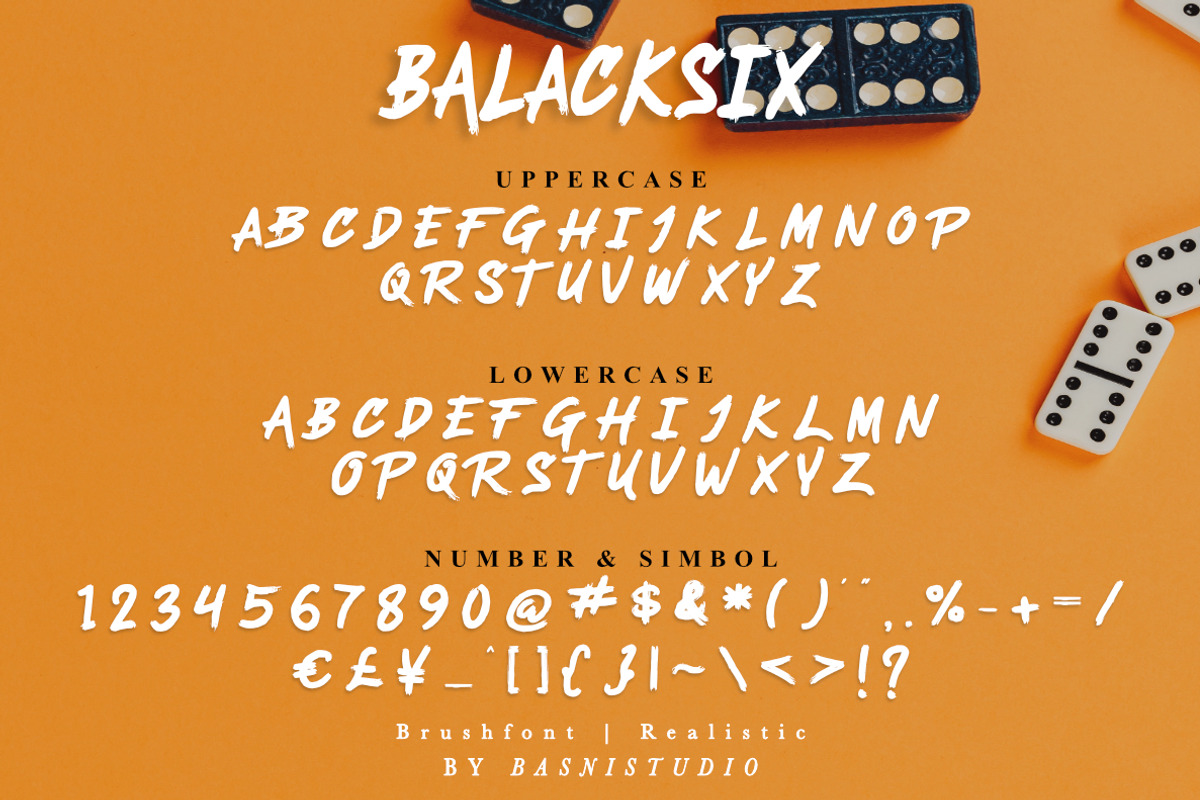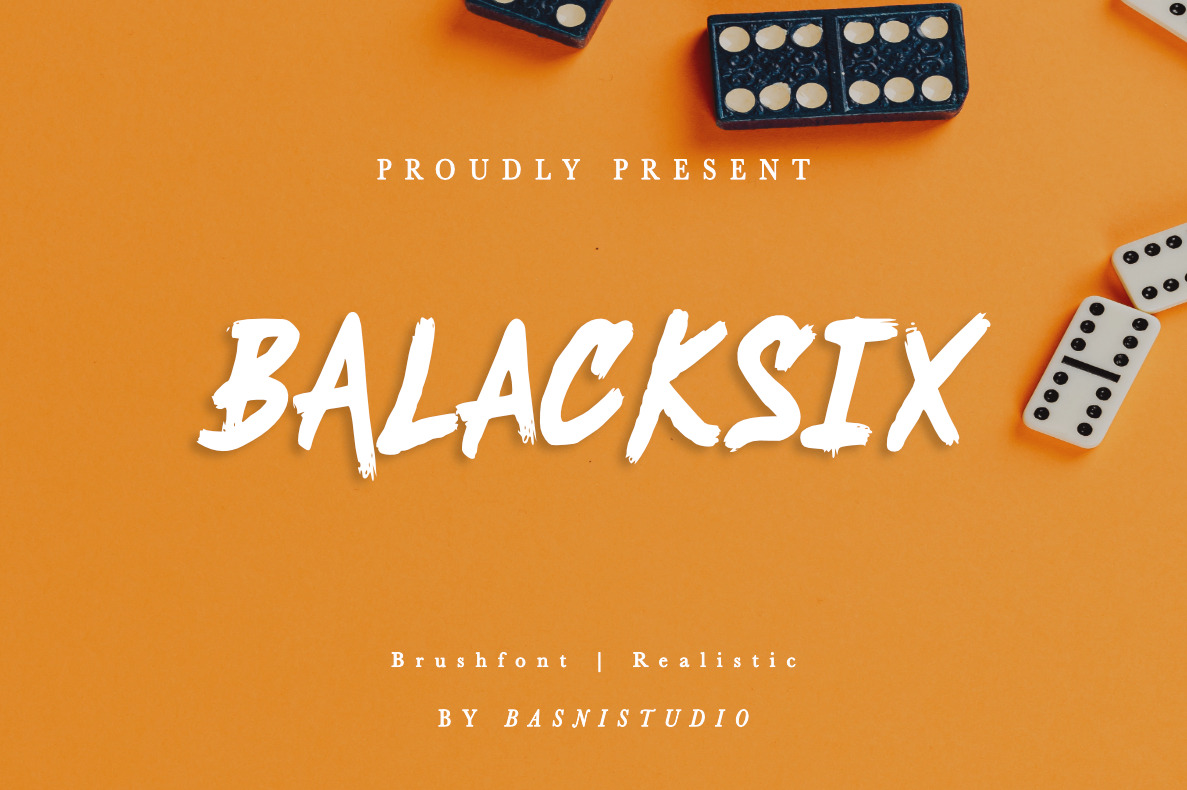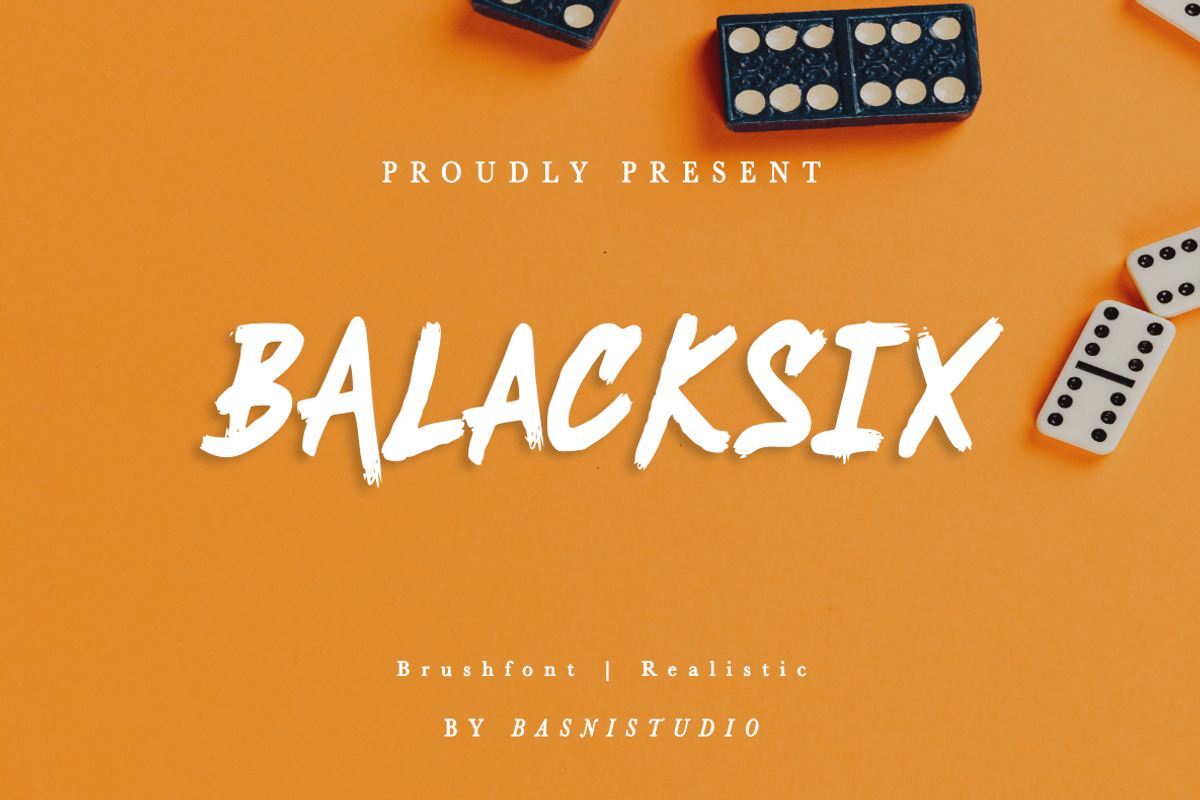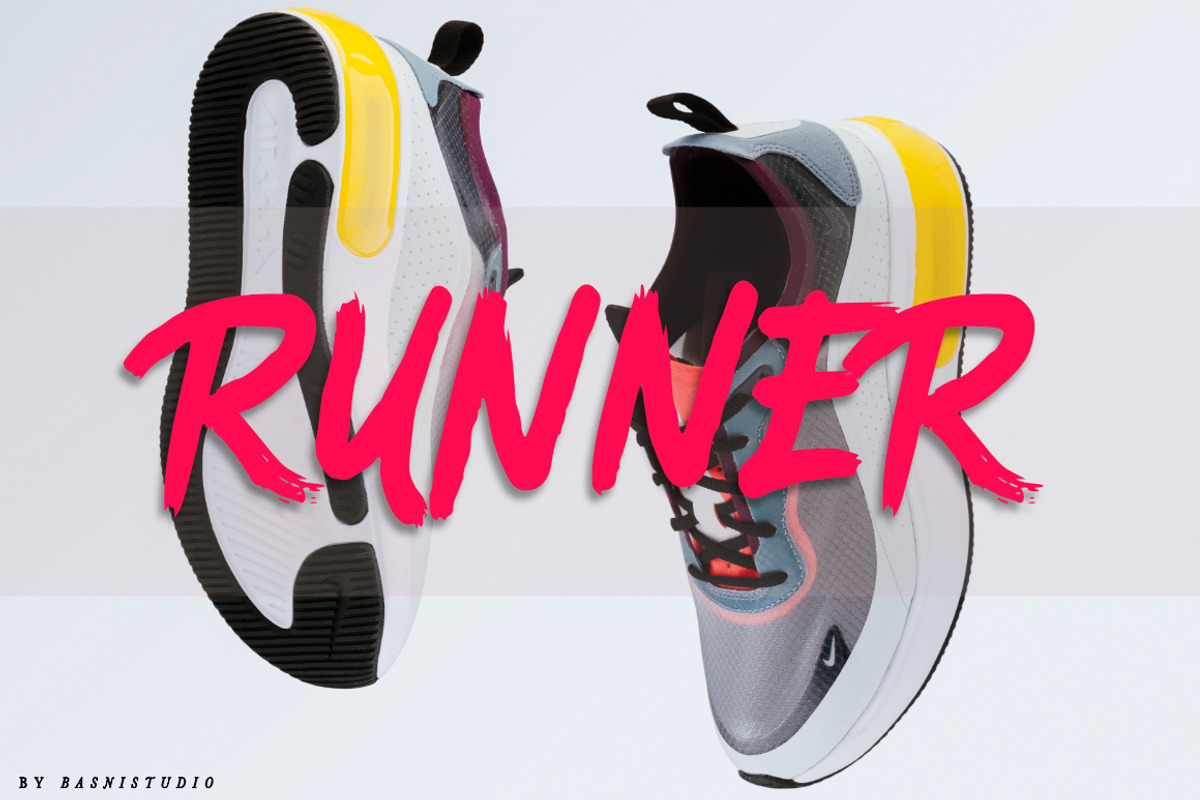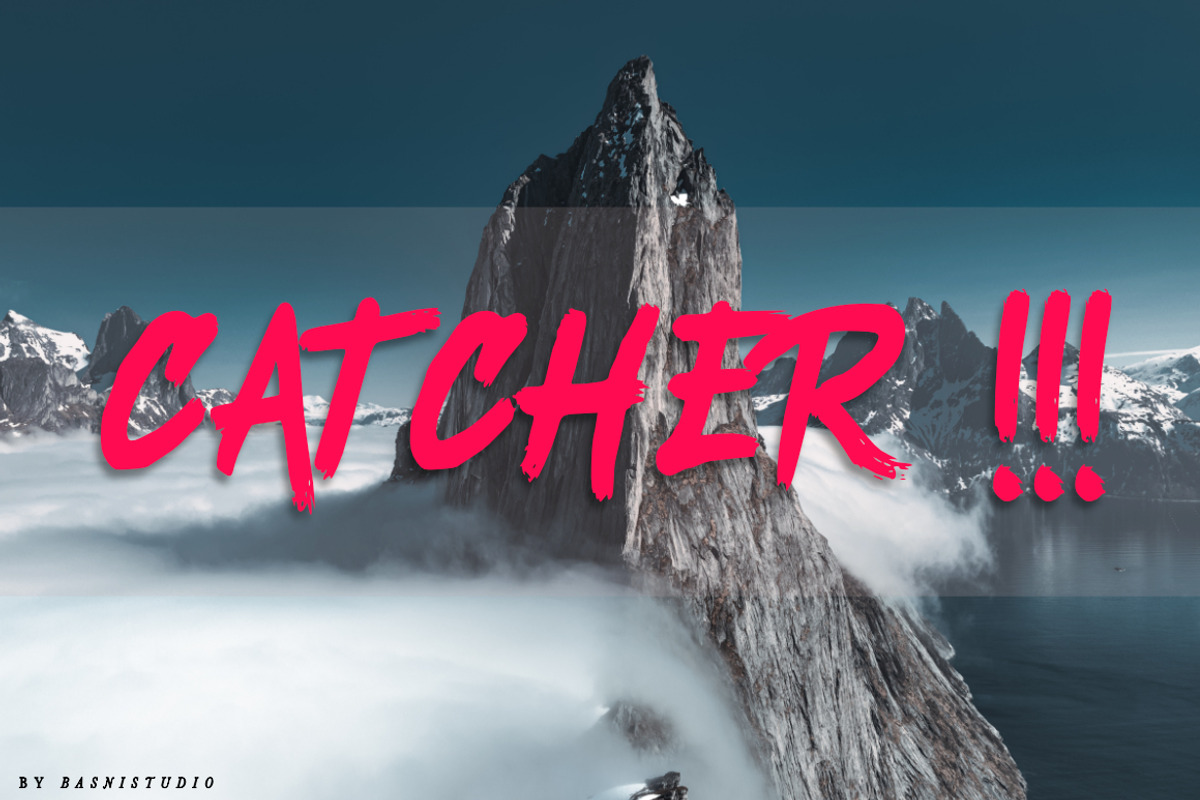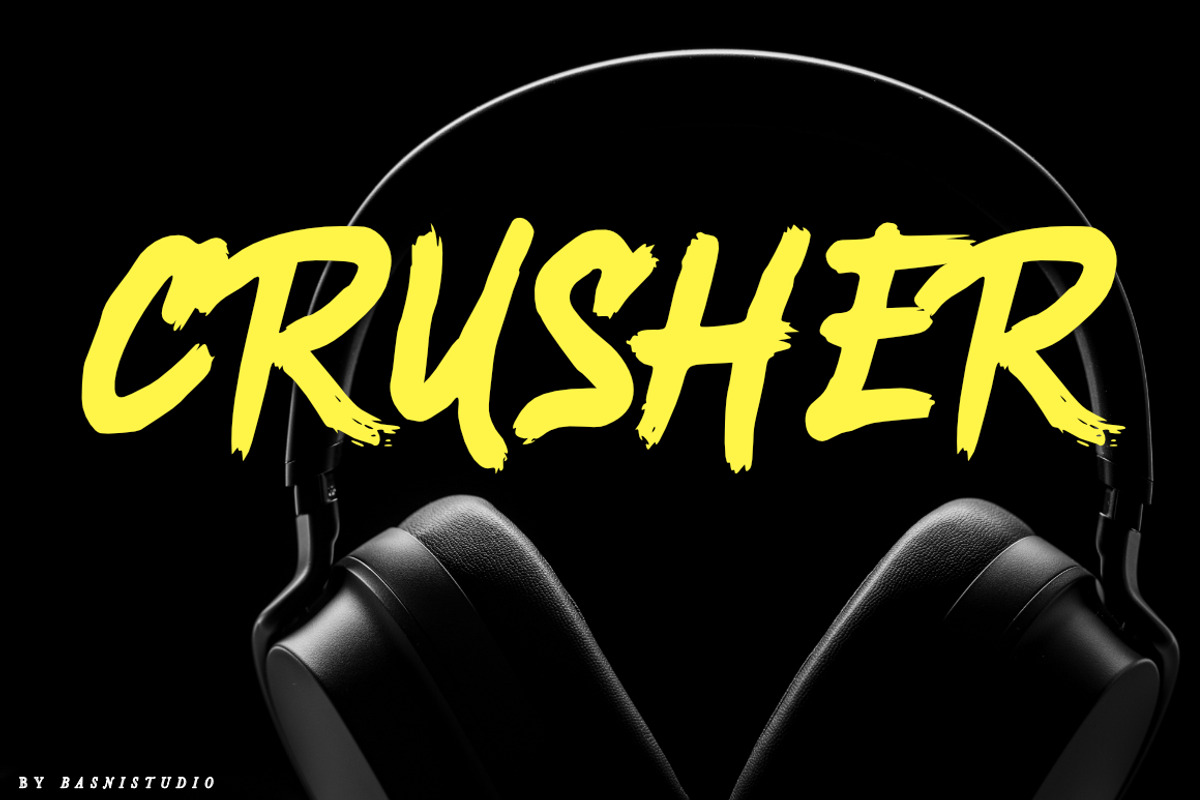
BALACKSIX a Brush Font
Introducing BALACKSIX, a Brush Font,
BALACKSIX, is a Brush Font with natural brush. perfect for branding, websites, and editorial designs. Includes all Caps Only